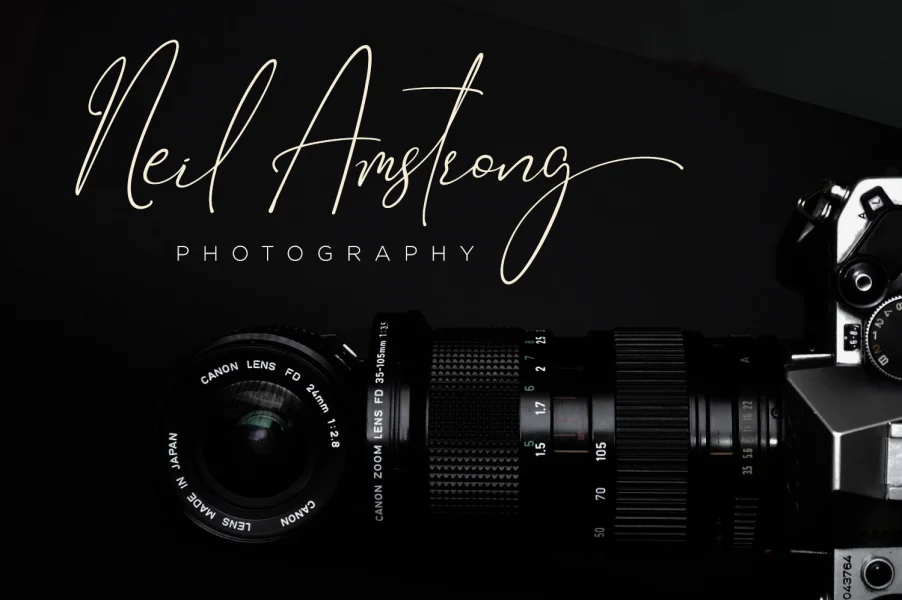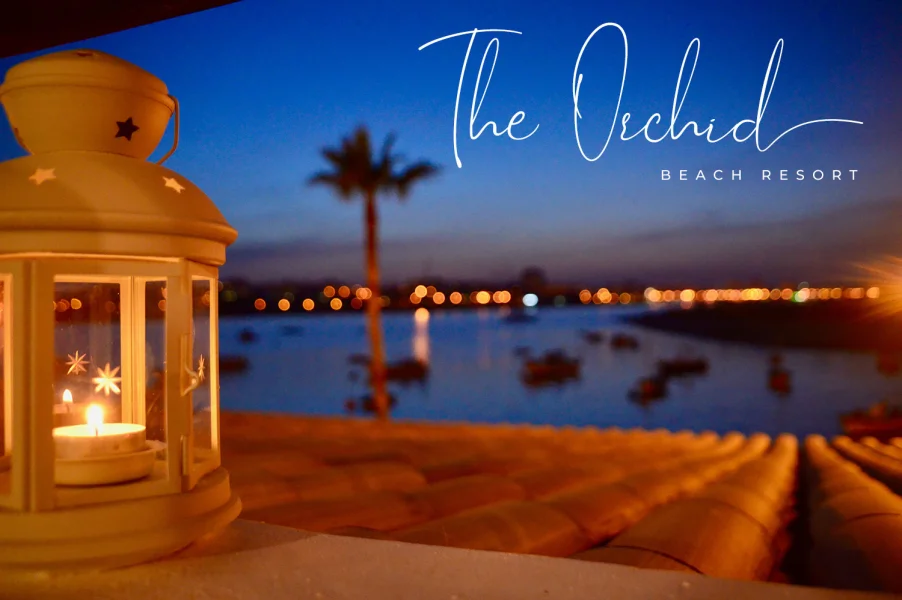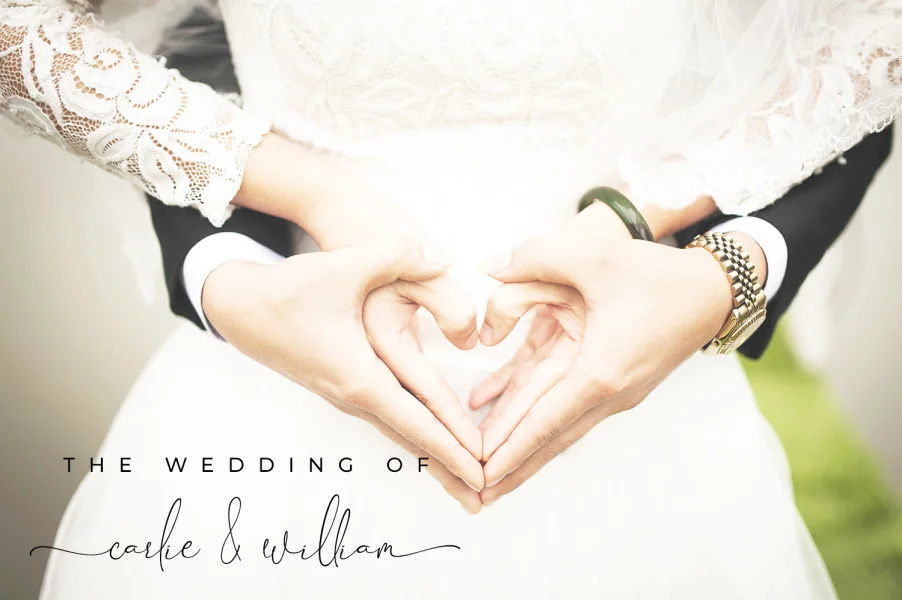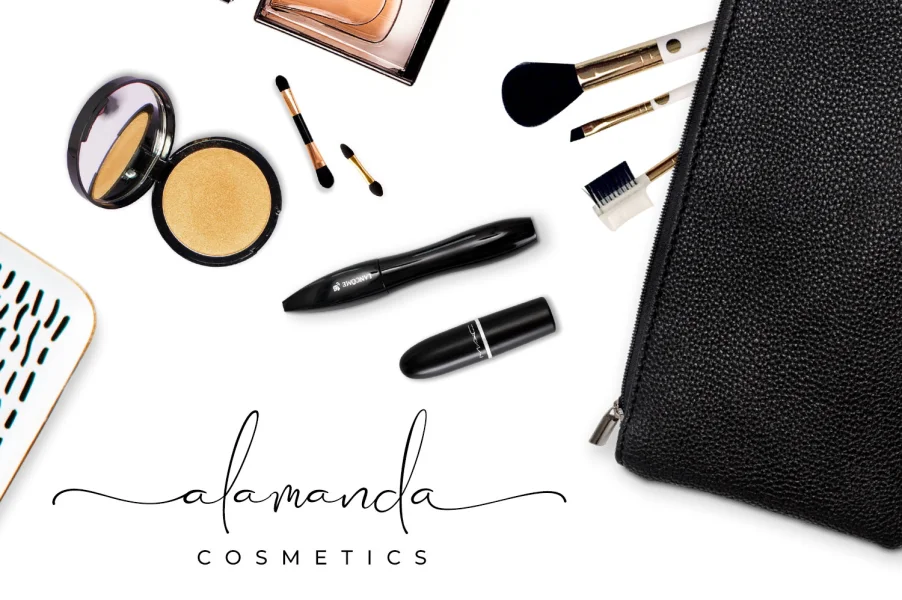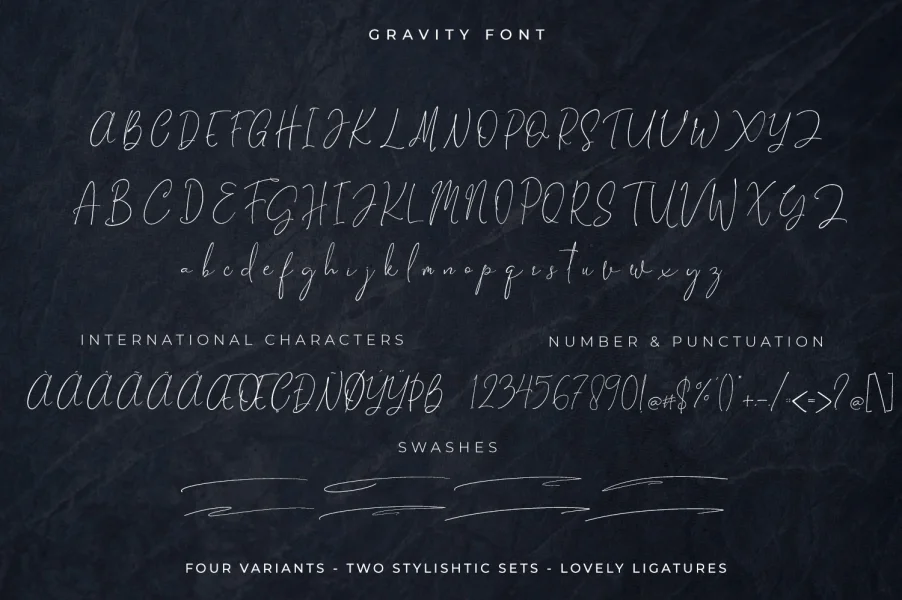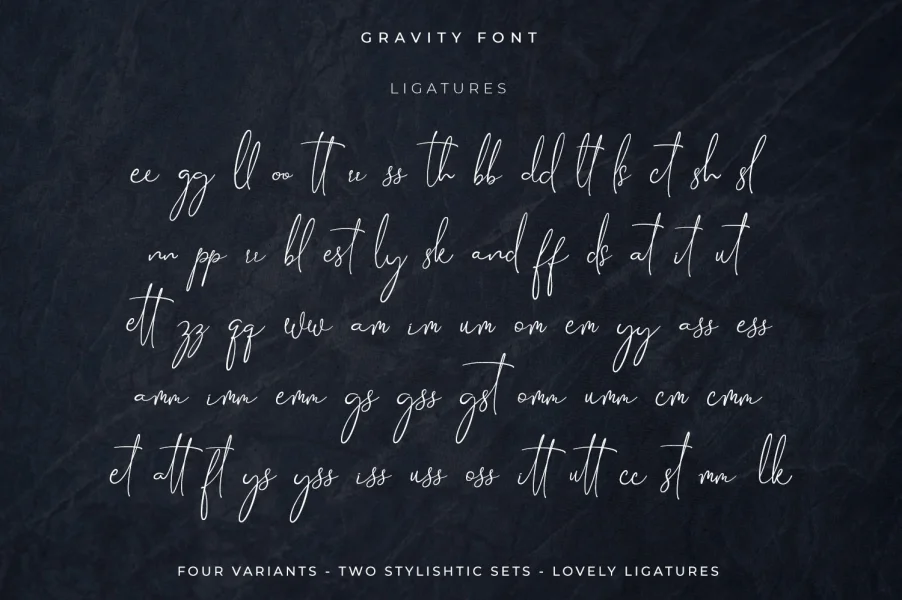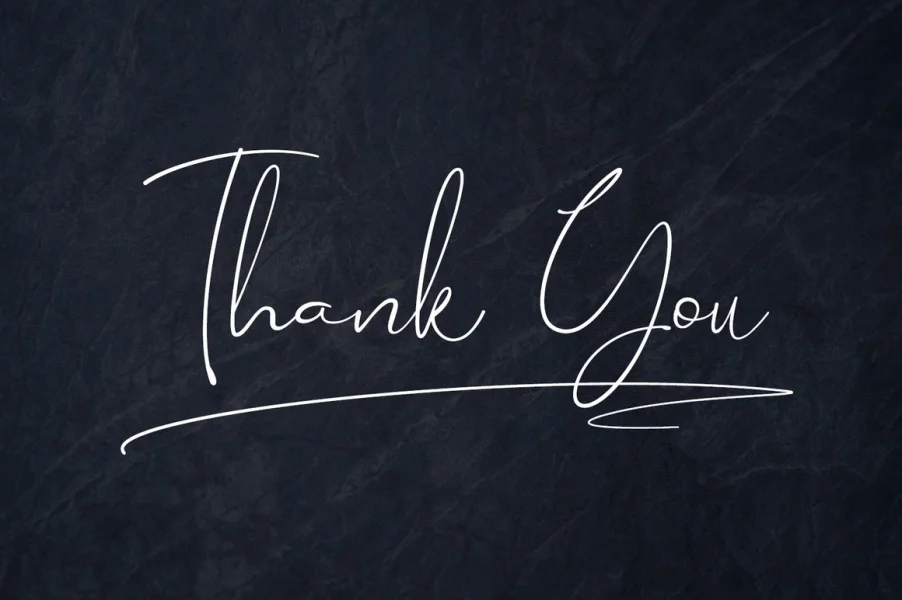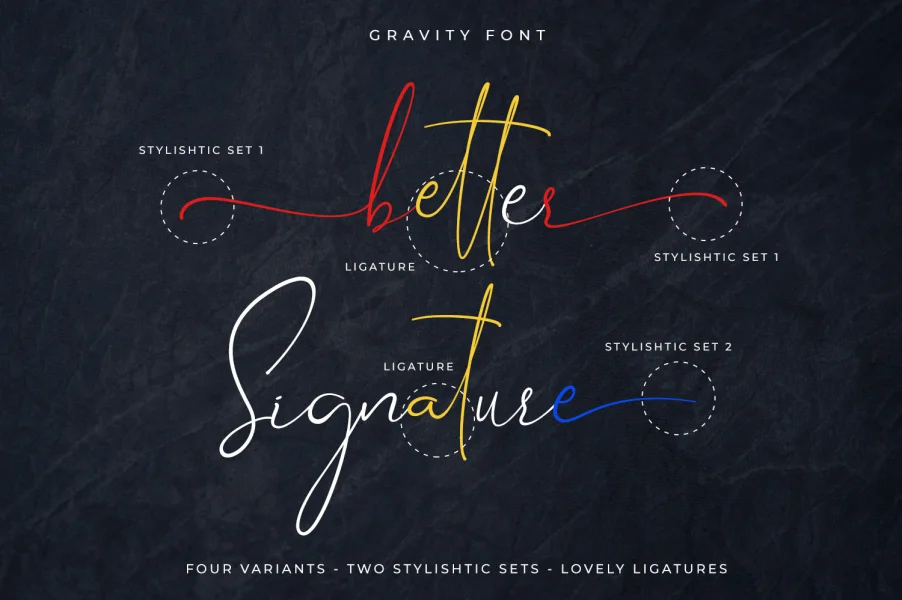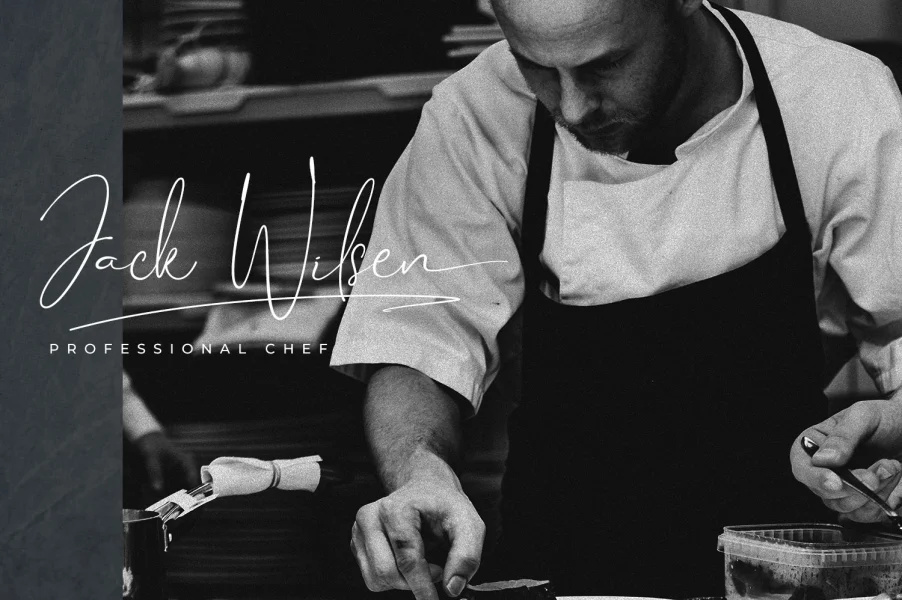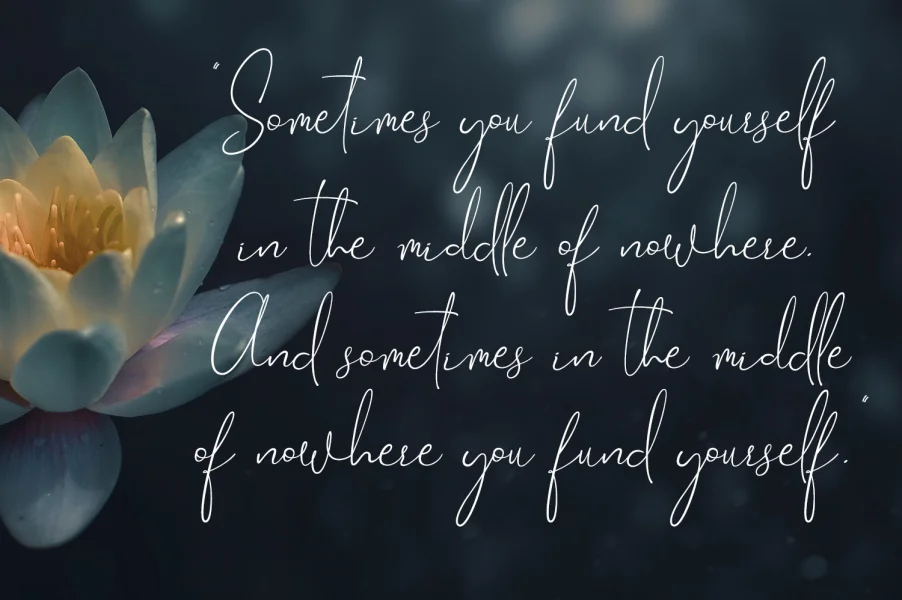
Say hello to Gravity Font—a luxury handwritten and signature style. With four variants of style, you can create more signature and handwriting fonts you like. This font is perfect for branding projects, signatures, quotes and wedding.